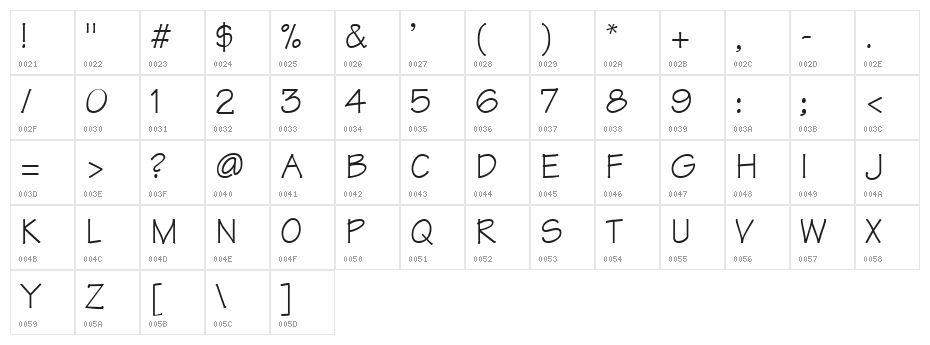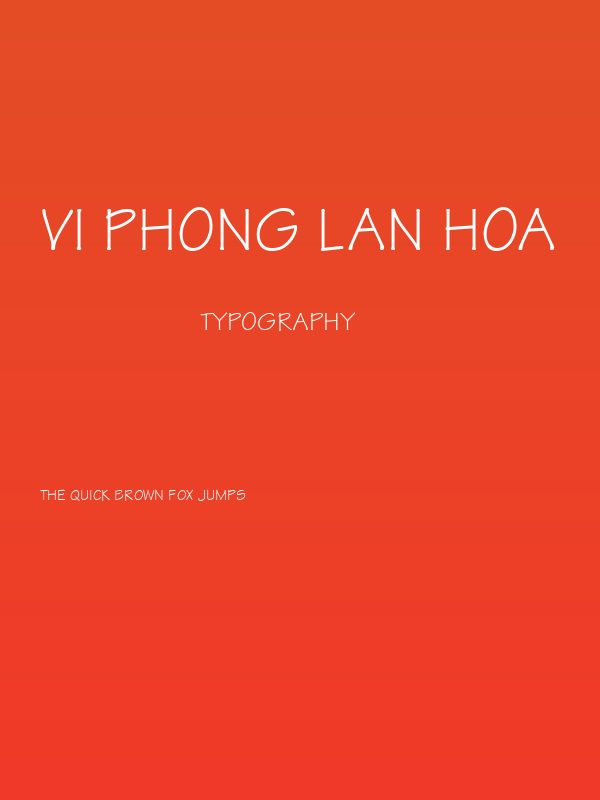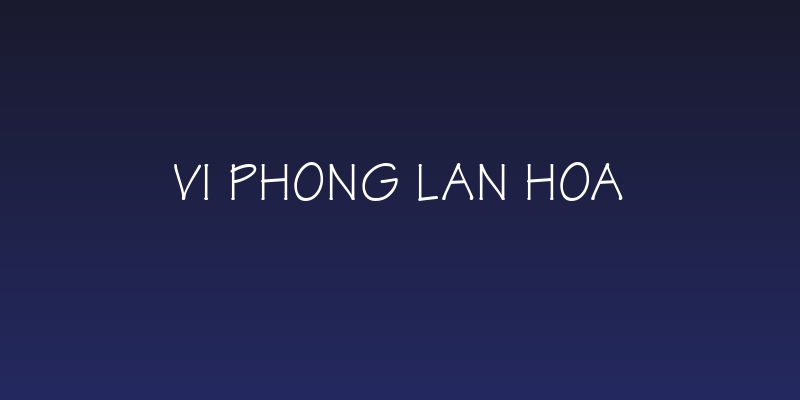
VI Phong Lan Hoa Font
VI Phong Lan Hoa Description
This font features a playful and informal handwritten style, characterized by its rounded edges and slightly irregular letterforms. The uppercase and lowercase letters maintain a consistent height, giving it a uniform appearance. The numerals are clear and legible, matching the overall casual aesthetic. Special characters are well-integrated, maintaining the same playful tone. This font is ideal for projects that require a friendly and approachable look, such as children's books, casual invitations, or personal branding.
| Use Case | Headlines, Informal text, Branding |
| Proposed Projects | Children's books, casual invitations, personal branding, greeting cards. |